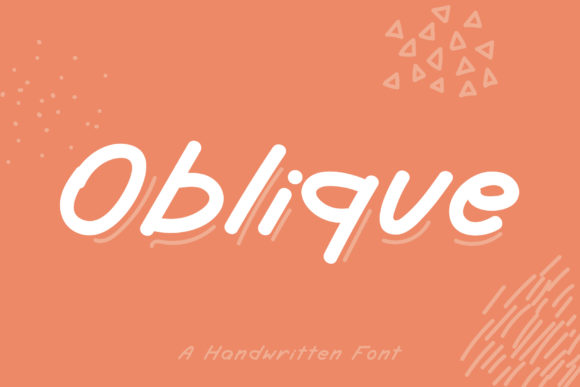
Oblique Font
Immerse yourself in the world of Oblique Font, a script font family created by the renowned Wanida Toffy. Prepare to be captivated by its mesmerizing beauty and contemporary elegance. Oblique is not just a font; it's an expression of artistic brilliance that will transform your creative projects into masterpieces.
With its intricate strokes and flowing curves, Oblique evokes a sense of timeless sophistication. Each character is meticulously crafted to exude a natural and effortless charm, making it the perfect choice for heartfelt messages and personalized designs. Whether you're designing wall art, crafting invitations, or creating stunning logos, Oblique will elevate your creations to new heights.
Unleash your imagination and explore the endless possibilities of Oblique. Create eye-catching headlines that demand attention, design logos that exude professionalism, or craft personalized invitations that leave a lasting impression. Oblique's versatility knows no bounds.
Experience the beauty and elegance of Oblique Font. Allow its graceful lines and sweeping curves to captivate your audience and leave them in awe.